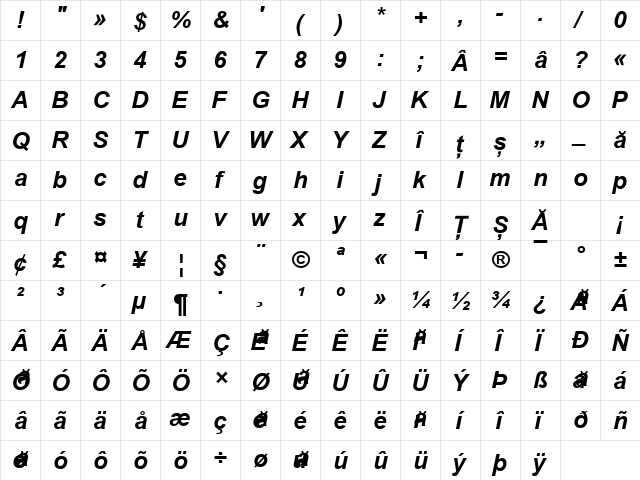
Arial Bold Italic
| Foundry | Monotype Typography |
| Designer | Monotype Type Drawing Office - Robin Nicholas, Patricia Saunders 1982 |
Design Context for Arial Typeface
Arial takes a measured approach to typography — its balanced proportions and neutral character make it a reliable workhorse for both digital and print work. The slanted form adds forward momentum and visual energy. Its bold stroke weight gives it real presence on the page.
Pro Tip: Use Arial for emphasis, pull quotes, and subheadings where its slanted energy can add rhythm to the layout.